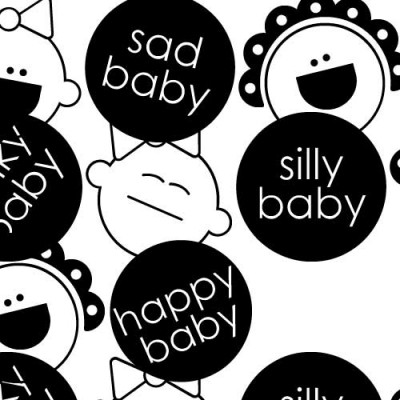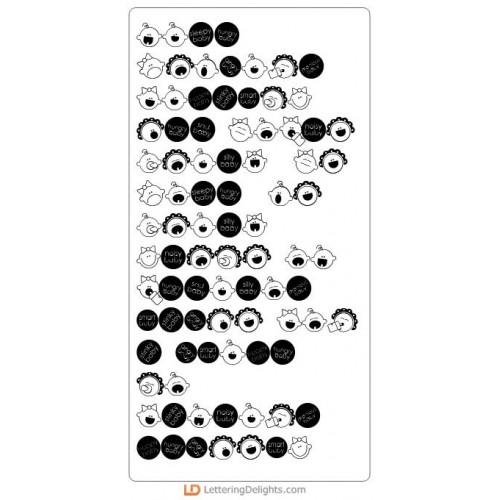
DB Baby Faces - DB
Oh, those precious little baby faces...you can read them like a book. From contented to sleepy, the one thing they all have in common is the 'darling factor'. Have some fun with DB Baby Faces as you create memory pages, cards, invitations, announcements and decorations.